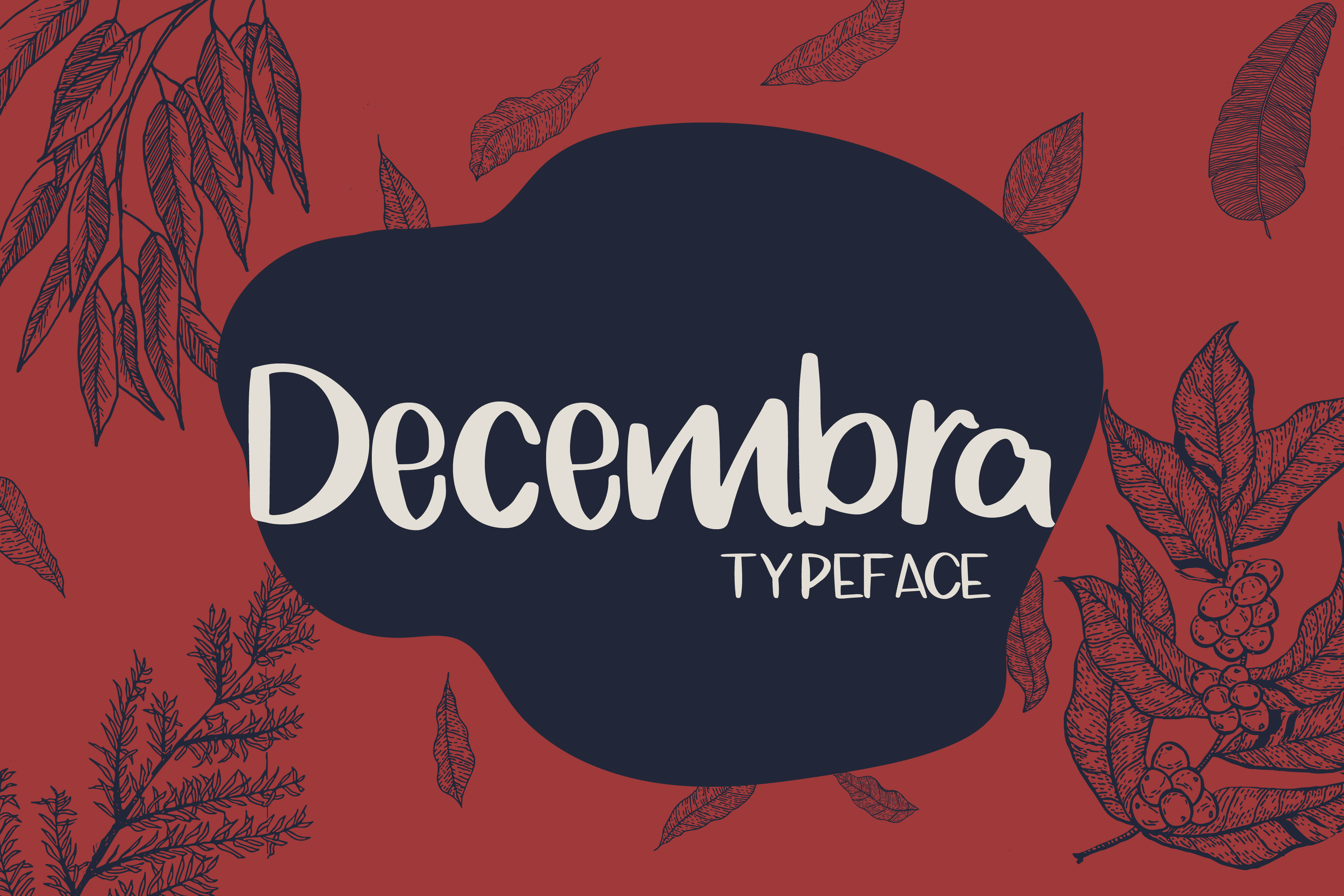
Decembra Handwritten Font
Cutest font ever! Decembra is a fun, handwritten font with cuteness, charm, and personality. It is an adorable font, perfect font for designing birthday cards, posters for your home, t-shirts, notebook covers, and stickers.